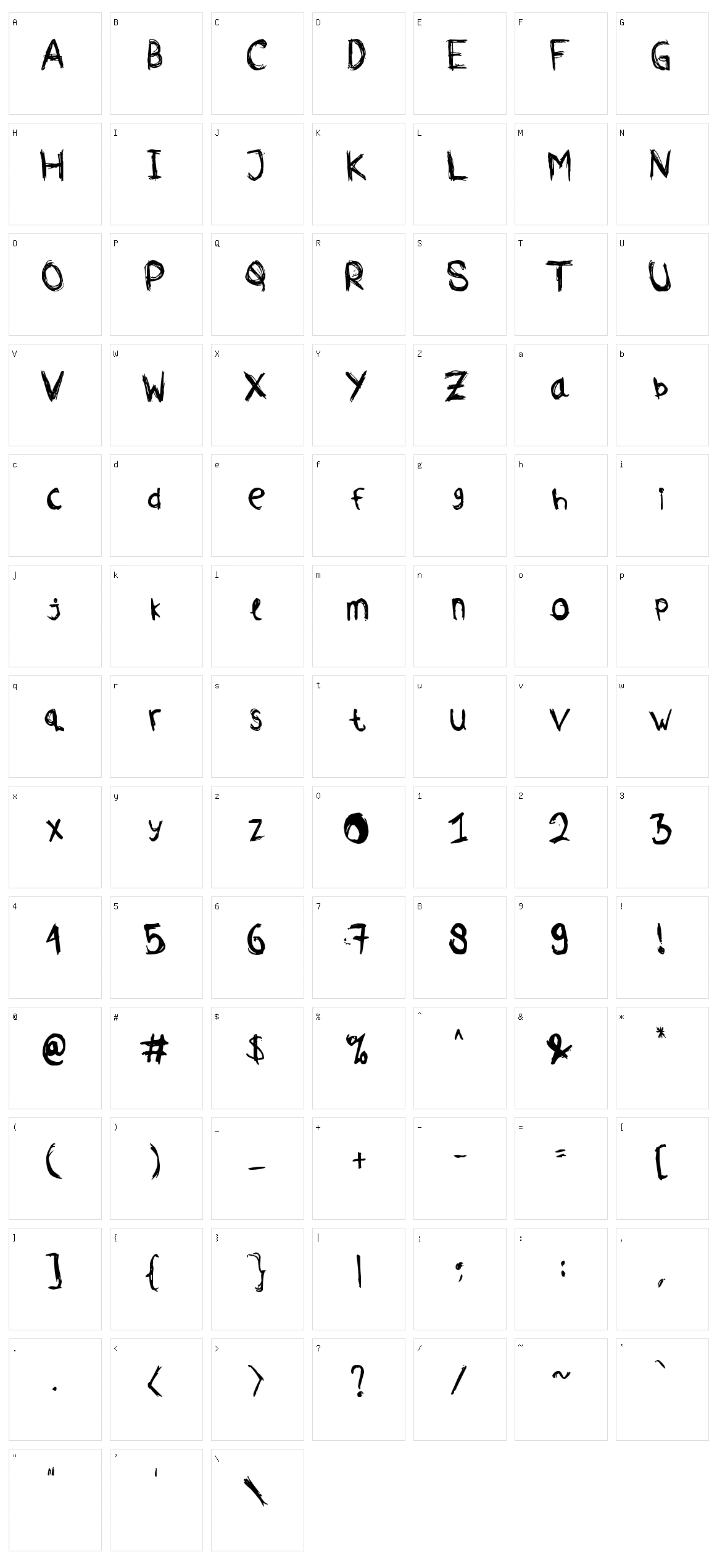
The free font Comodorepapers is carefully designed by Reza Mfck, showcasing a thoughtful balance of creativity and usability and falls under the Trash font style. When you download the ZIP file, it contains only 646.93 KB of font files, making it lightweight and quick to download. Please review the license details below to understand permitted usage and distribution rights. If license information is not available, we recommend using this font for personal projects only or contacting the author directly for commercial usage permissions.